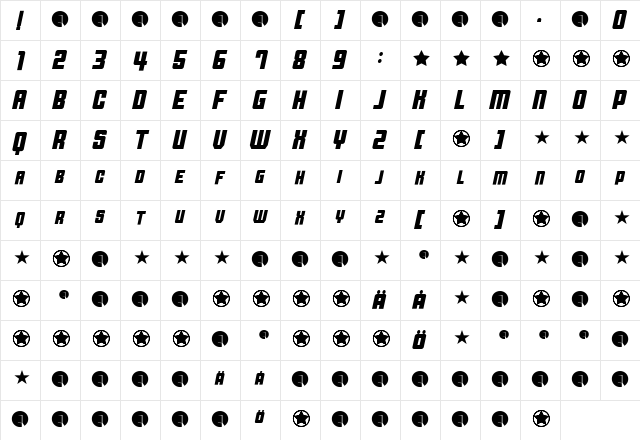
Paregos Italic
Design Context for Paregos Typeface
Paregos offers clean, dependable letterforms without strong stylistic allegiance, making it a practical choice for designers who need flexibility. Its italic angle brings a sense of urgency and motion to the letterforms.
Pro Tip: Use Paregos for emphasis, pull quotes, and subheadings where its slanted energy can add rhythm to the layout.